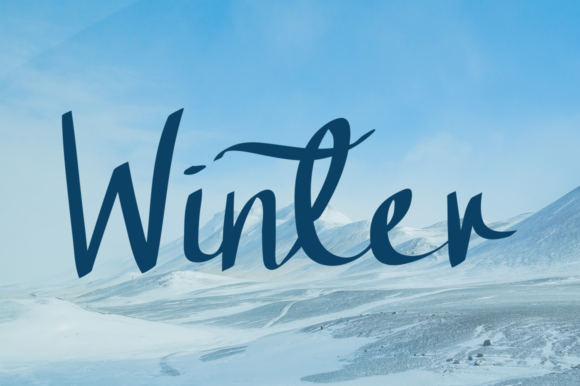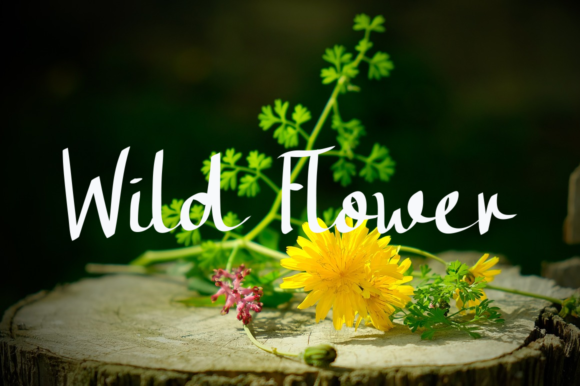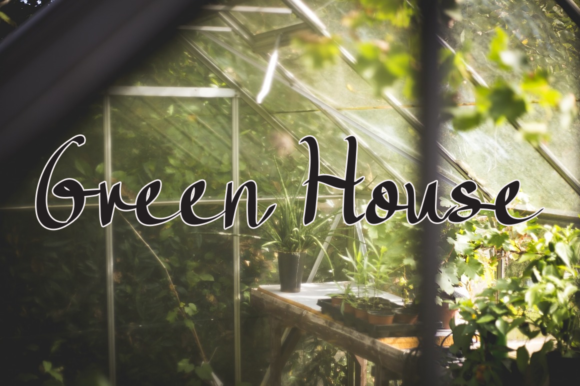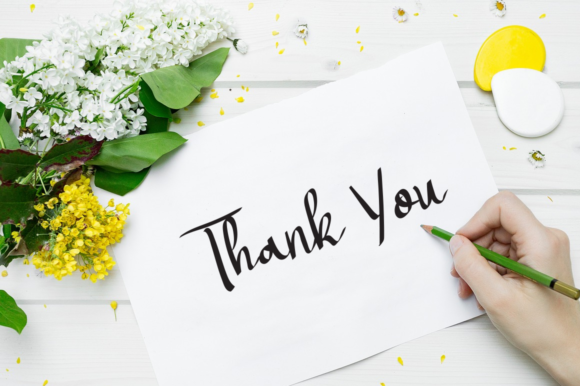
Introduction to Everest Font
As designers, we’ve all been there – staring at a blank canvas, searching for the perfect font to bring our creative project to life. It’s that moment of discovery, when a single font can elevate an entire design and leave a lasting impression. For those seeking a touch of whimsy and romance, we’re excited to introduce you to the charming Everest Font.
| 👤 Author | Garcio |
This delightful, cursive handwritten font is a game-changer for designers looking to add a high-quality, free download to their design resource arsenal. With its transparent background, the Everest Font is the perfect addition to any creative project, allowing for seamless layering and endless design possibilities.
Whether you’re working on a wedding invitation, a children’s book, or a whimsical blog post, the Everest Font is sure to bring a joyful and romantic touch to each of your projects.
Key Features of Everest Font
- High-quality design with transparent background, ideal for creative projects
- Unique, stylish design perfect for use as a design resource in various creative projects
- Includes a wide range of characters, including uppercase and lowercase letters, numbers, and punctuation
- Supports multiple languages, making it a versatile design resource for global creative projects
- Can be easily customized using font editing software, allowing for a high degree of flexibility and creativity
Honest Review: Everest Font
I recently stumbled upon the Everest Font, and I’m excited to share my thoughts on this design resource. As a designer, I’m always on the lookout for high-quality fonts that can elevate my creative projects. The Everest Font definitely delivers.
- ✨ High-quality design: The font is sleek, modern, and well-designed, making it perfect for a variety of creative projects.
- ✨ Transparent background: This feature allows for seamless integration with transparent backgrounds, giving designers more flexibility when working on creative projects.
- ⚠️ Limited character set: While the font is well-designed, the character set is somewhat limited, which may be a concern for designers working on projects that require a wide range of characters.
- ⚠️ Not suitable for all projects: The font’s modern design may not be suitable for every project, particularly those that require a more traditional or vintage aesthetic.
Overall, I’m impressed with the Everest Font, and I think it’s a great addition to any designer’s toolkit. While it may have some limitations, its high-quality design and free download make it a valuable resource for creative projects.
The Everest Font is perfect for a variety of creative projects, including logos, branding materials, and marketing materials. It’s also great for use in presentations, reports, and other documents where a high-quality font is needed.
Tips for Getting the Most Out of the Everest Font
To get the most out of the Everest Font, try pairing it with other high-quality design resources, such as images and graphics. Experiment with different font sizes, colors, and styles to create a unique and eye-catching design. The Everest Font is a versatile design resource that’s perfect for a variety of creative projects.